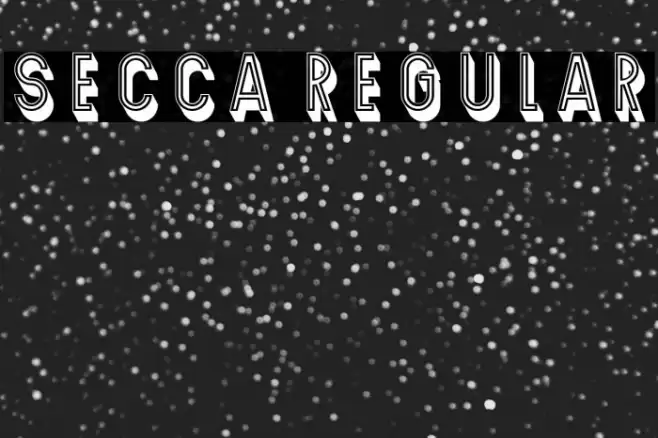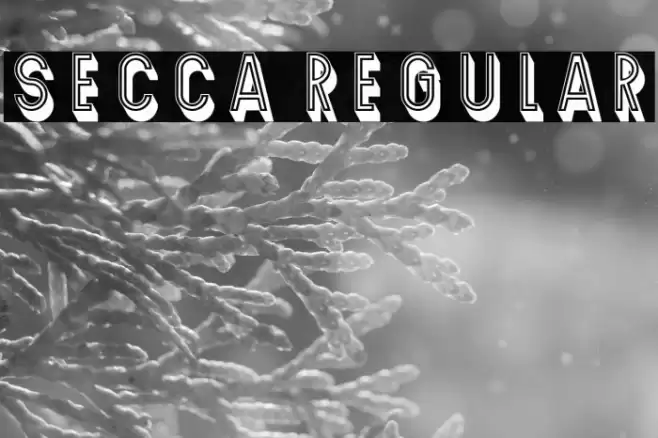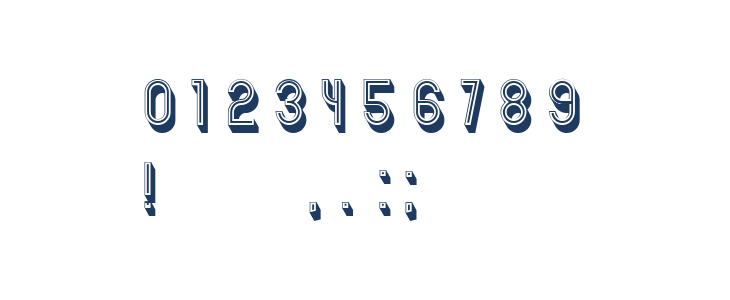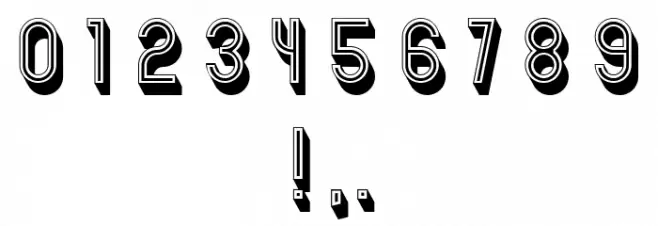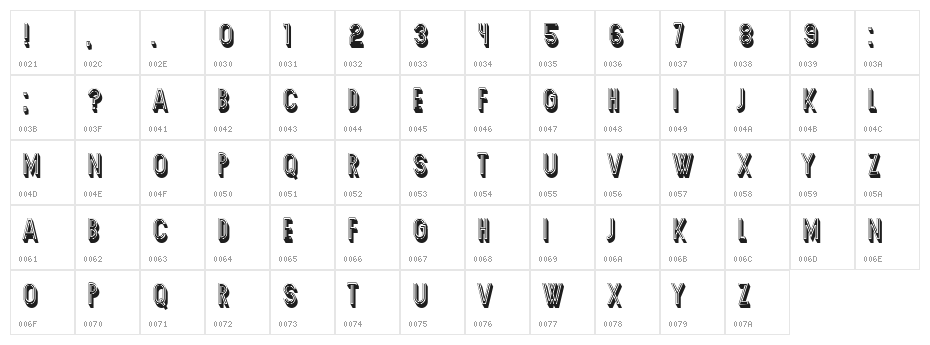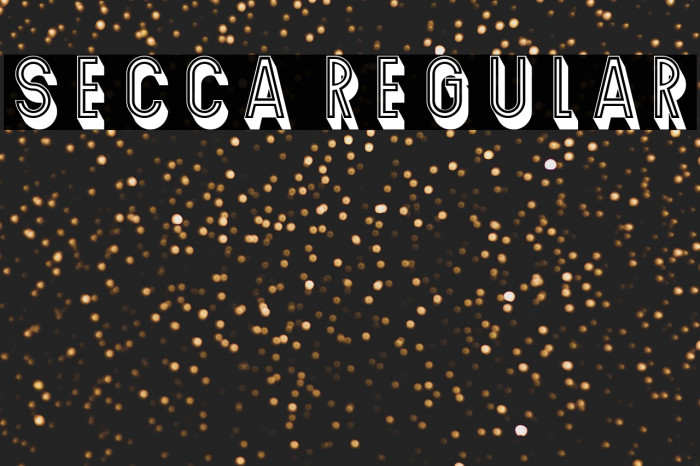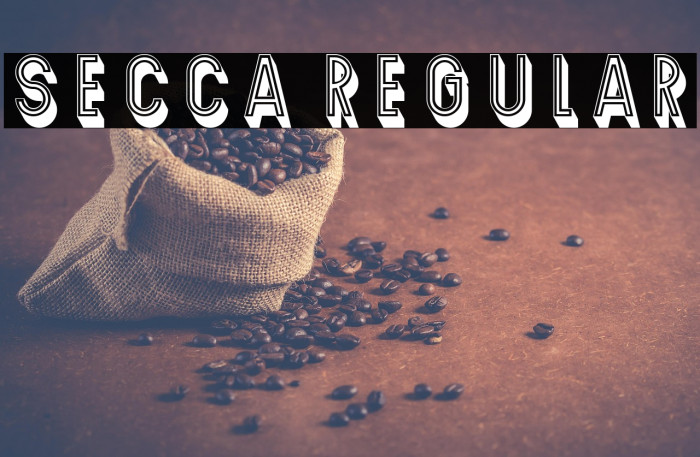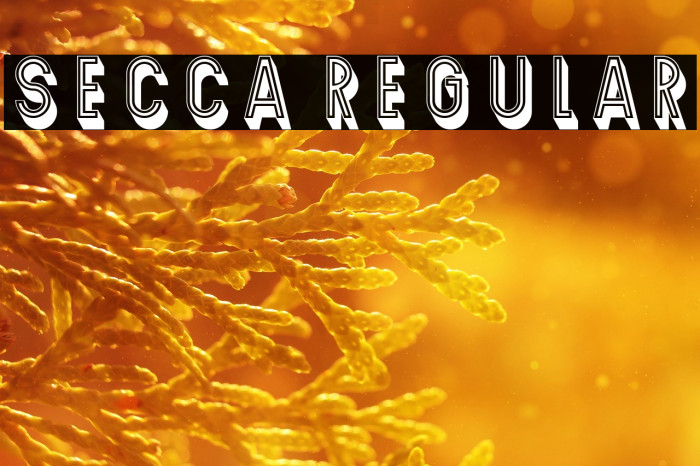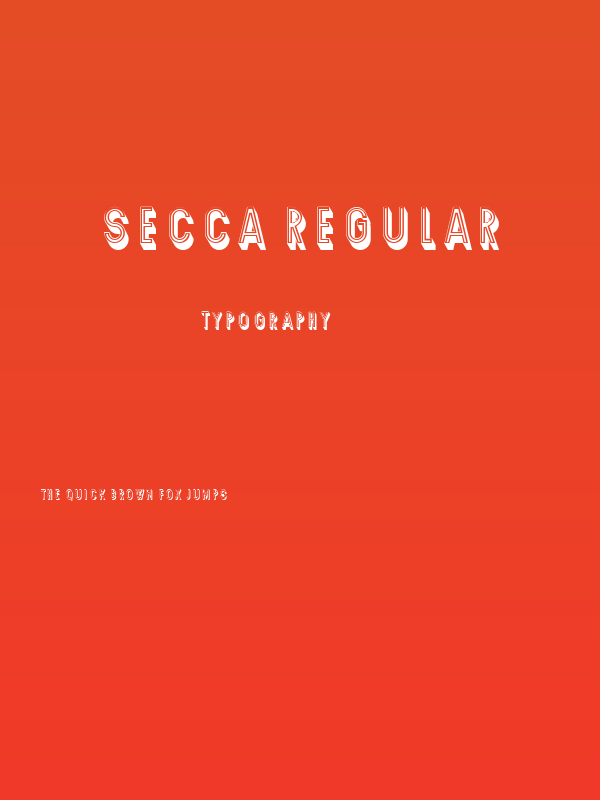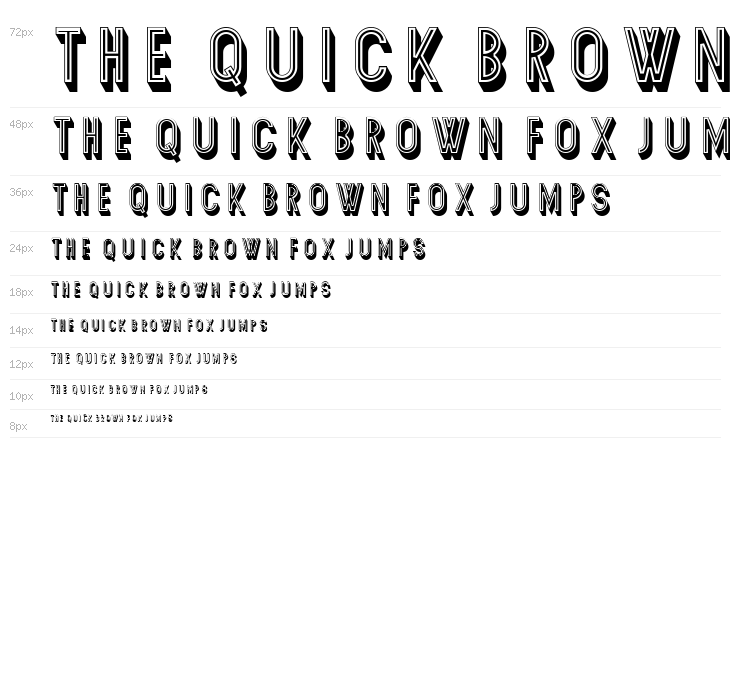
Secca Regular Font
Secca Regular Description
This font features a bold, three-dimensional design with a shadow effect that gives it a striking and dynamic appearance. The characters are uppercase and numerals, each with a distinct, blocky style that emphasizes depth and dimension. The font's geometric structure is consistent across all characters, providing a uniform look. The shadow effect is achieved through a clever use of outlines and fills, creating an illusion of depth. This design is particularly eye-catching and suitable for projects that require a strong visual impact.
A bold, three-dimensional font with a shadow effect for dynamic visual impact from Uncategorized fonts.
- Font: Secca Regular